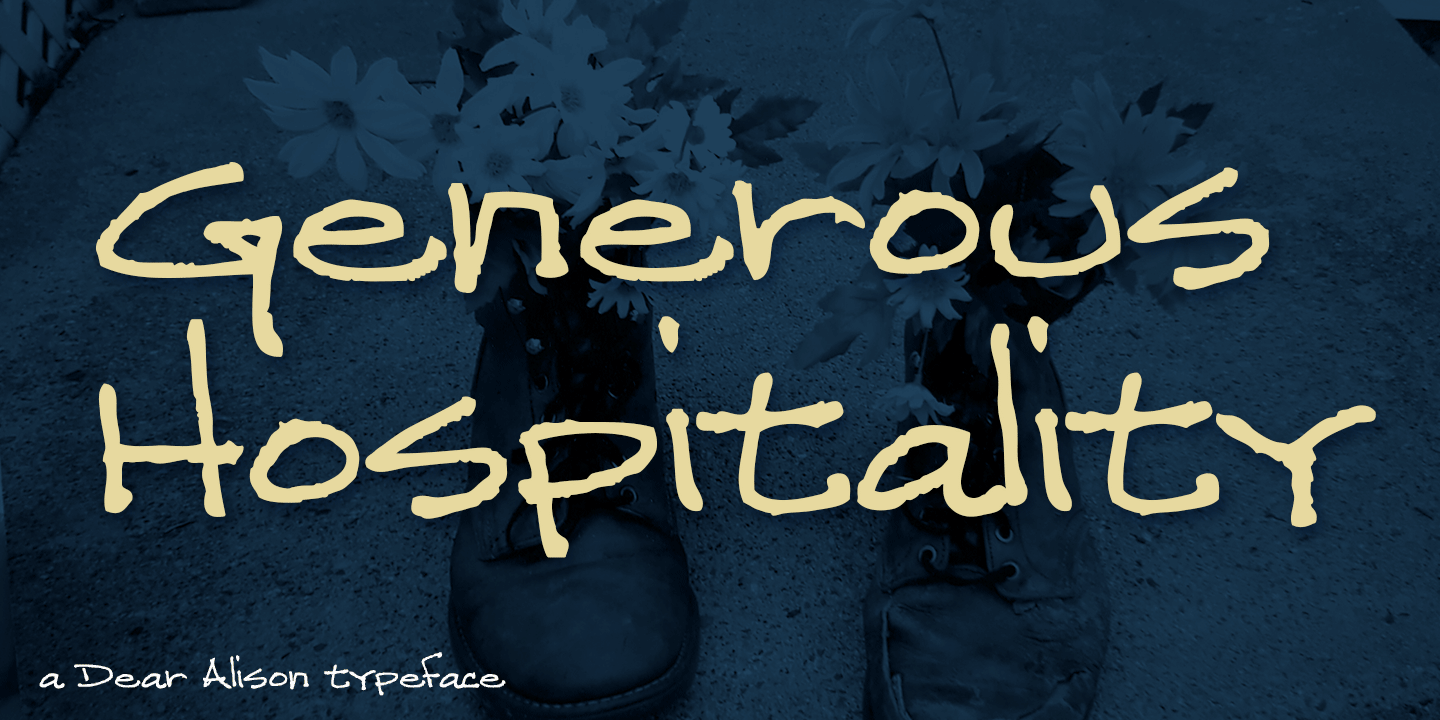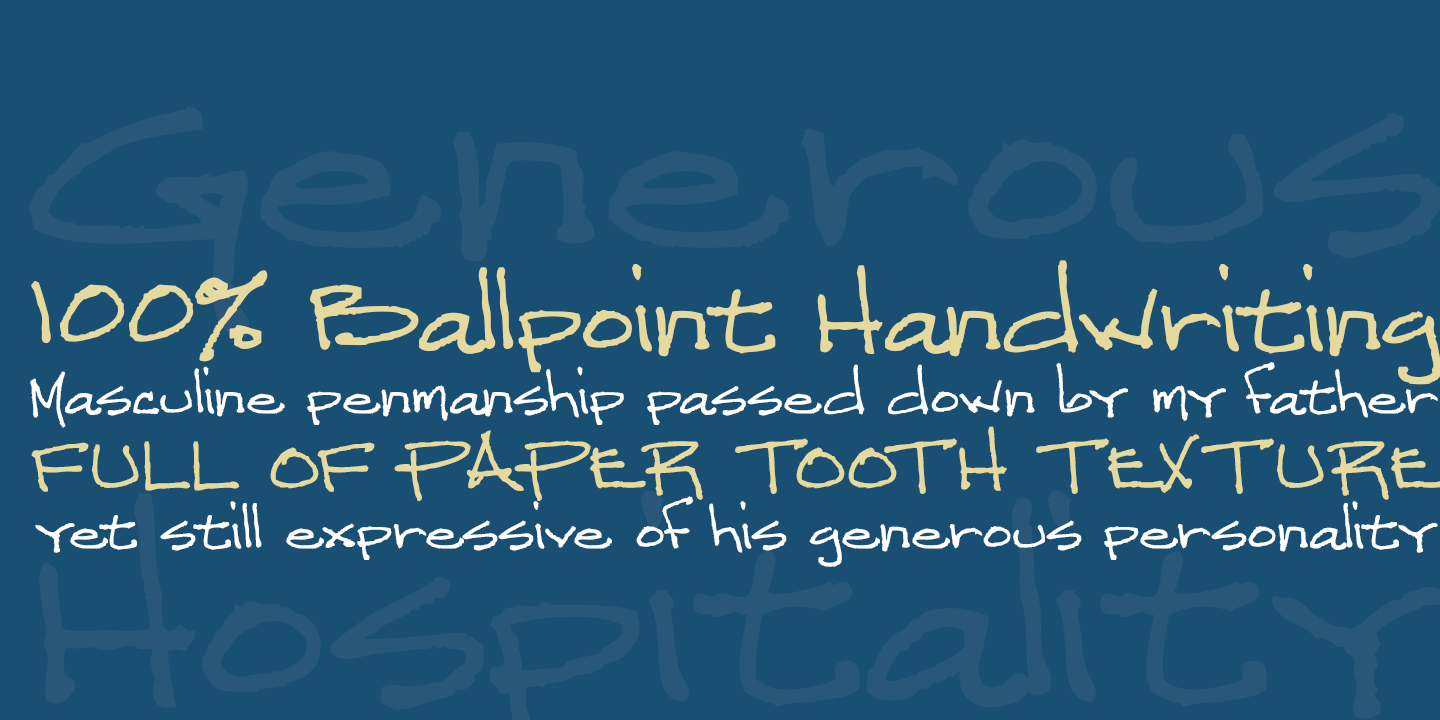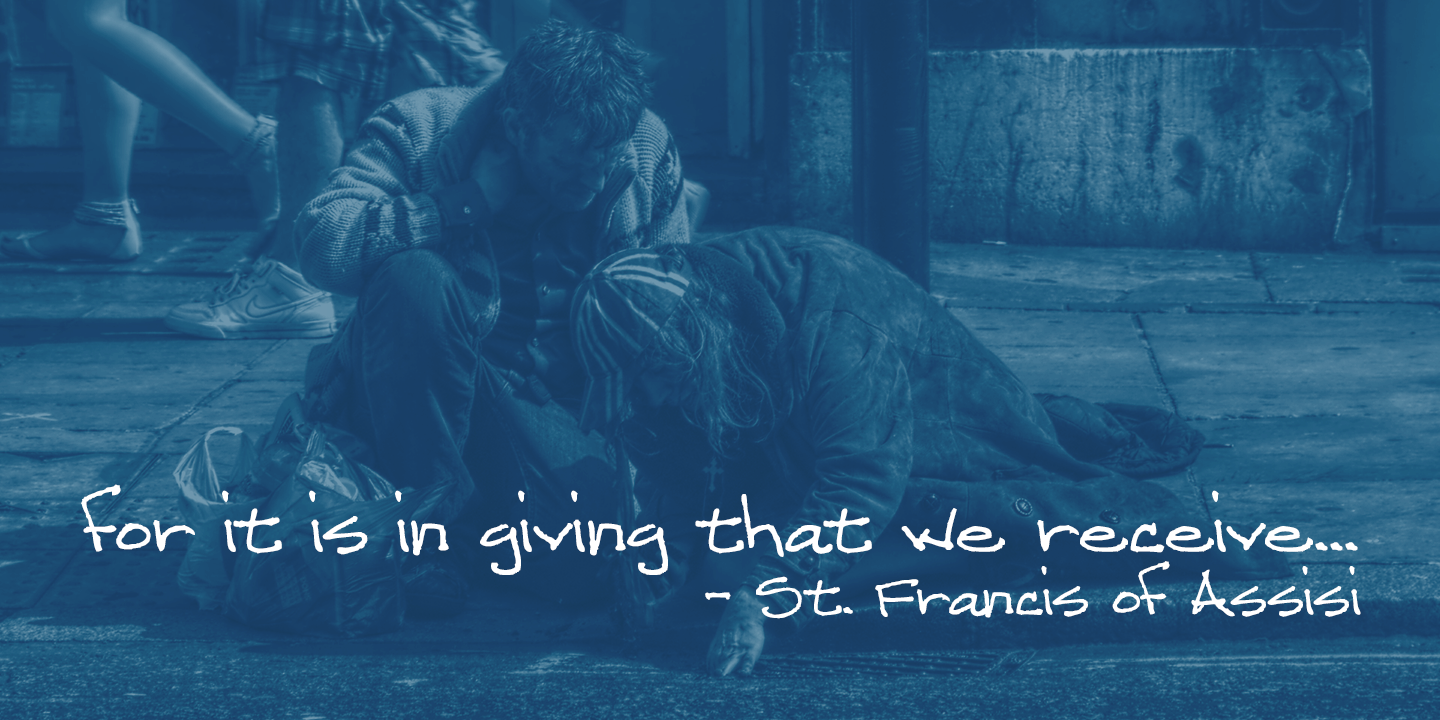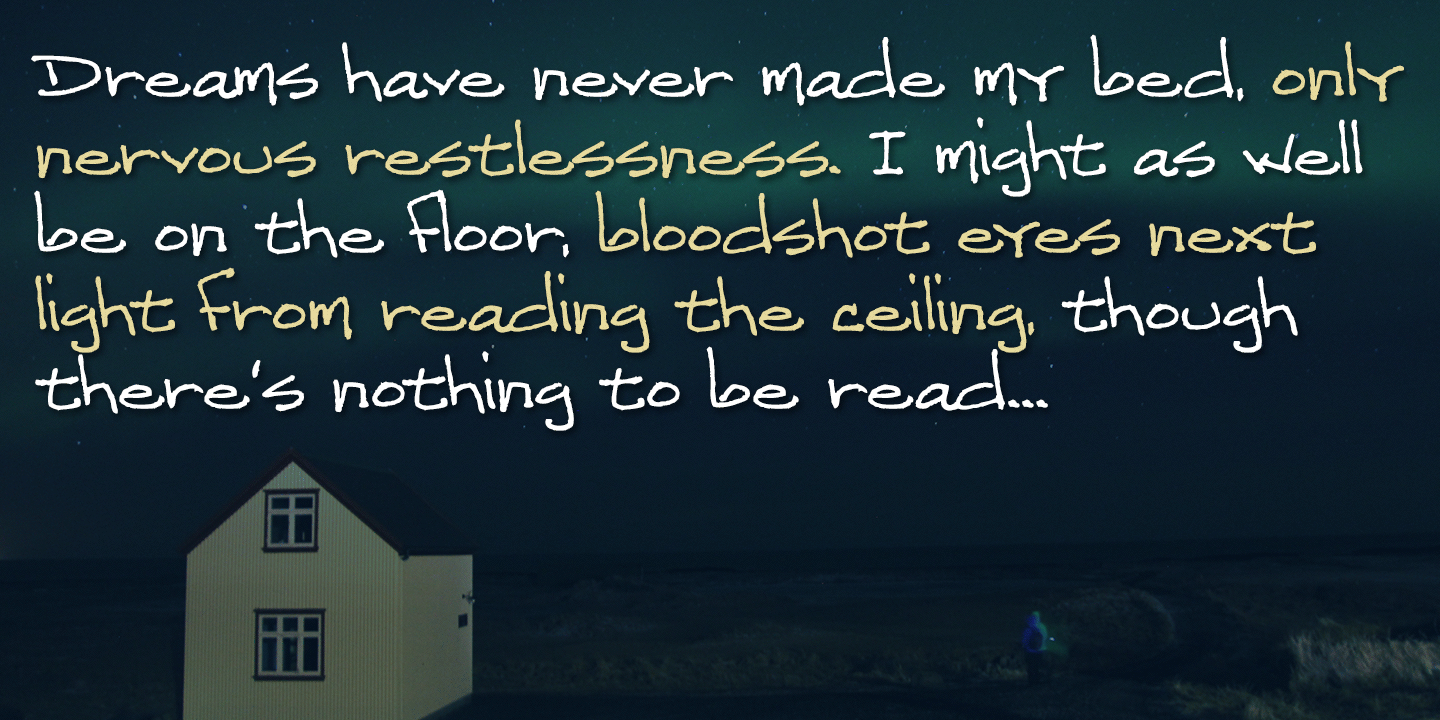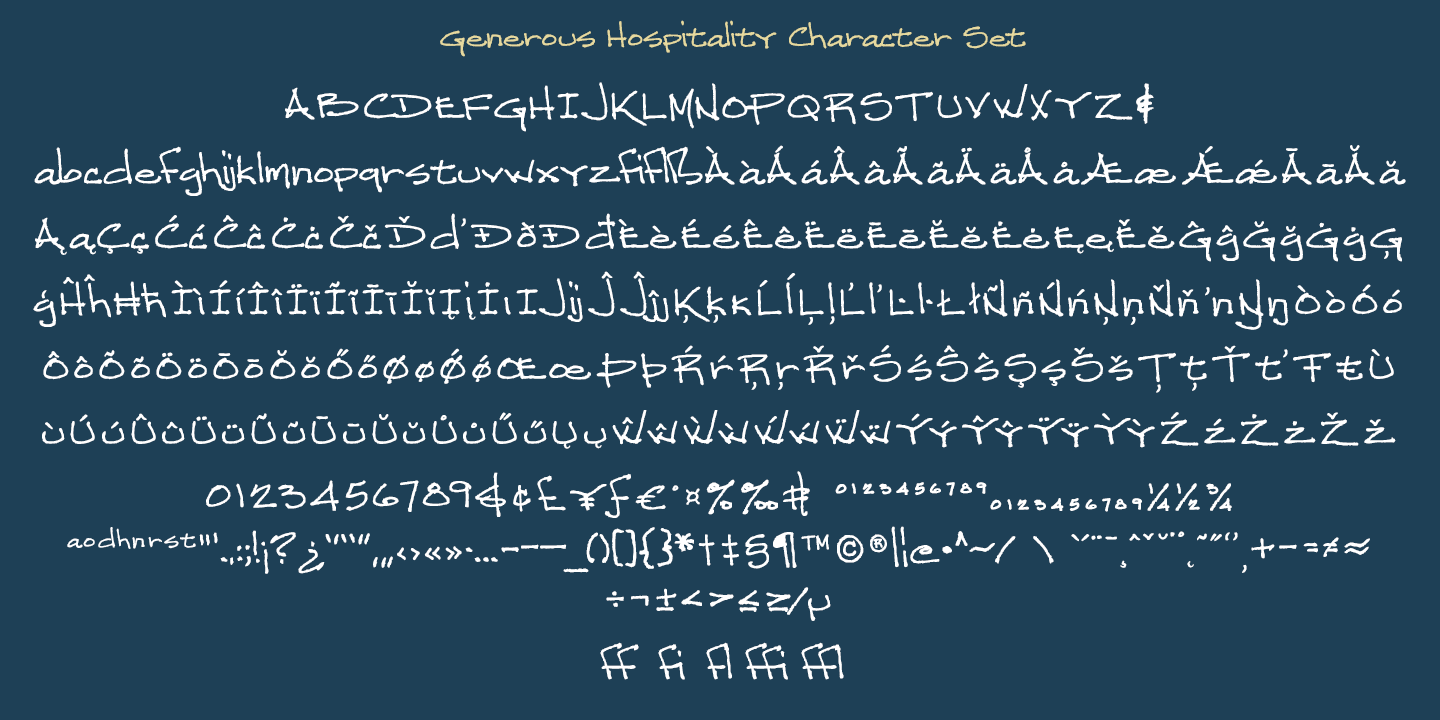
Generous Hospitality
Font Family by Dear Alison
I recently came across a letter my father had written long ago to a friend that was returned to sender. He kept the letter, which primarily thanked his friend for his hospitality when my father unexpectedly dropped in for a visit while traveling. I was so taken by the handwriting, that I decided to make it into a font to not only remember my father, but to forever preserve his handwriting.
Generous Hospitality not only taps into the character of the person the letter was written to, but to the personality of my father. If you are looking for a masculine handwriting typestyle for your designs, I think this font could be a nice fit.